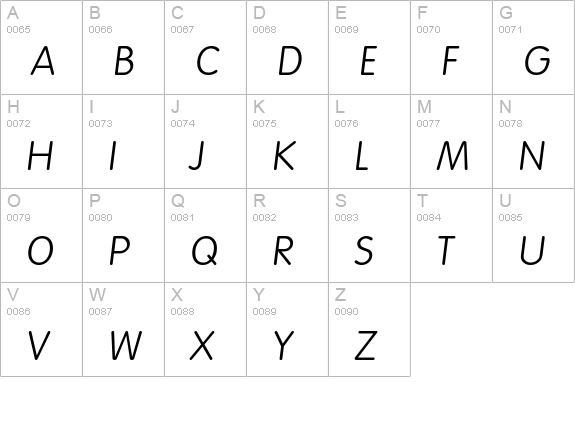
VolkswagenSerial-Light-Italic is a refined, elegant, italic variant in the VolkswagenSerial typeface family \xE2\x80\x94 well suited to elegant body text, refined sub-headings, and luxury branding.
VolkswagenSerial-Light-Italic is a sleek and modern font that exudes sophistication and elegance. With its slender lines and stylish curves, this font is perfect for adding a touch of class to any design project. Whether you are creating a logo, website, or print materials, VolkswagenSerial-Light-Italic will elevate your work to the next level. The best part? This stunning font is available for free download at FontsMarket.com. Simply visit the website and start using VolkswagenSerial-Light-Italic in your projects today. Don't miss out on this opportunity to enhance your designs with this exquisite typeface.